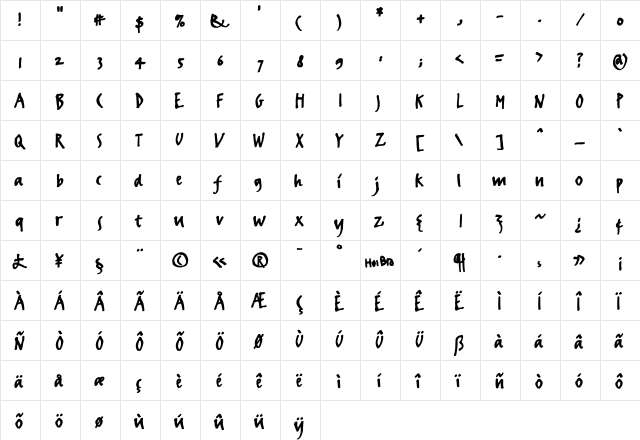
FFErikrighthand Regular
Design Context for FFErikrighthand Typeface
FFErikrighthand brings a calligraphic fluidity to the page — its connecting strokes and expressive curves give it an unmistakably human quality.
Font Pairing: Combine FFErikrighthand with a simple geometric sans for maximum contrast — the tension between flowing curves and clean structure is a classic typographic pairing.
Pro Tip: Pair FFErikrighthand with a clean sans-serif for supporting text. The contrast between fluid script and geometric structure creates an elegant typographic hierarchy.